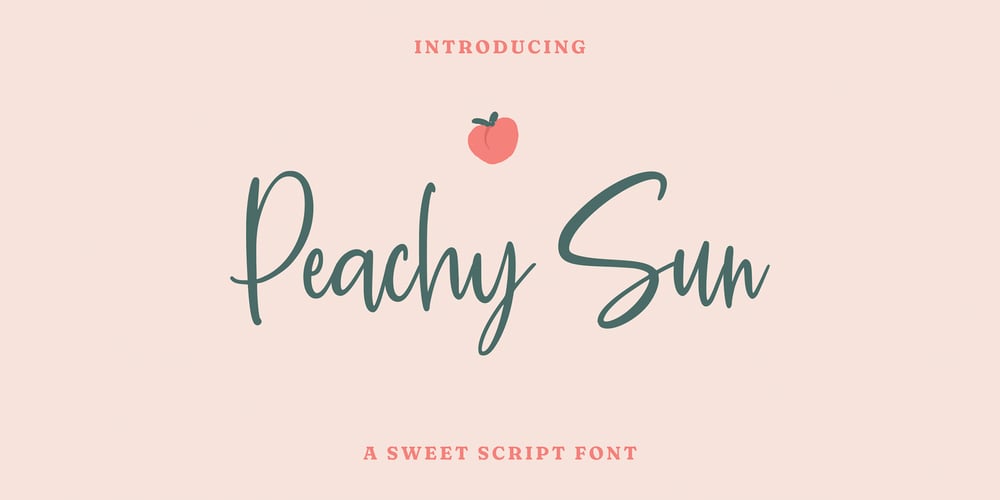
Peachy Sun
Peachy Sun font
Peachy Sun Font Family was designed by Robby Hermawan and published by Carpiola Studio. Peachy Sun contains 1 styles and family package options. Peachy Sun is a lovely and timeless handwritten font. It is the best choice for creating eye catching logos, branding and quotes. Every letter has a unique and beautiful touch, which will make your design come alive!